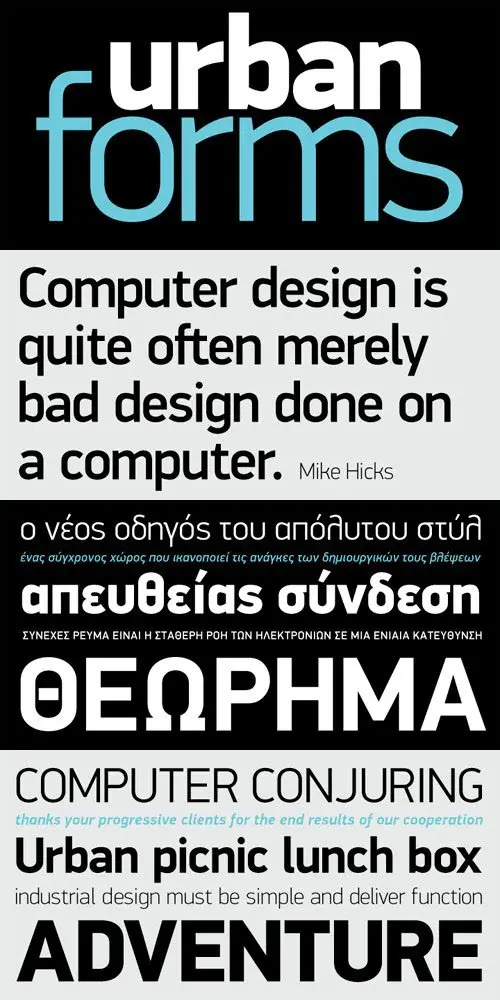
While DIN Display seems to retain DIN’s basic characteristics, it shines with its sharper corners and contemporary look. Completed in 2002, it was first released and published in Parachute’s award-winning 2003 catalog and immediately was a hit. It has been used successfully in magazines, corporate applications and packaging in fields such as music, fashion, technology, visual arts. The ‘Pro’ series has been enhanced with more weights, multilingual support and opentype features in all different styles. Specifically, this superfamily supports simultaneously Latin, Greek and Cyrillic, while each one of its 15 weights contains 1197 glyphs and 20 opentype features. Additionally, every font in this superfamily has been completed with 270 copyright-free symbols, some of which have been proposed by several international organizations. This is a set of very useful daily symbols for packaging, branding and advertising. Symbols for public areas, environment, transportation, computers, fabric care and urban life.